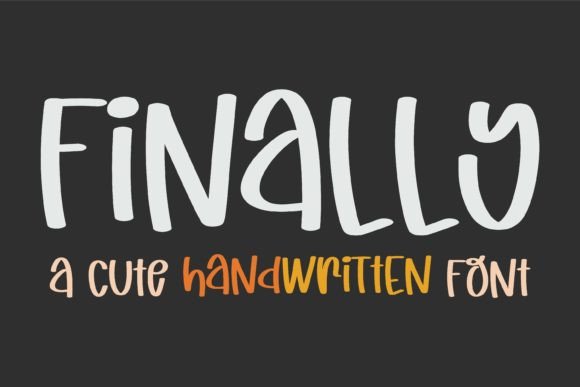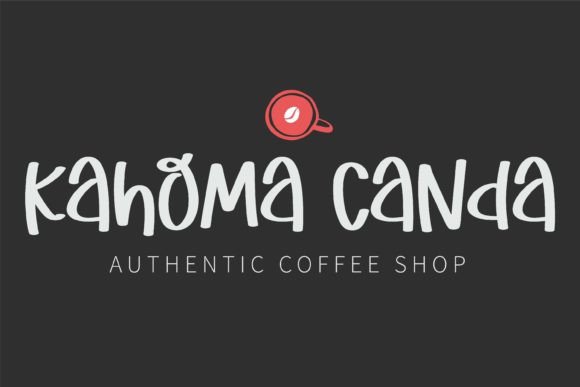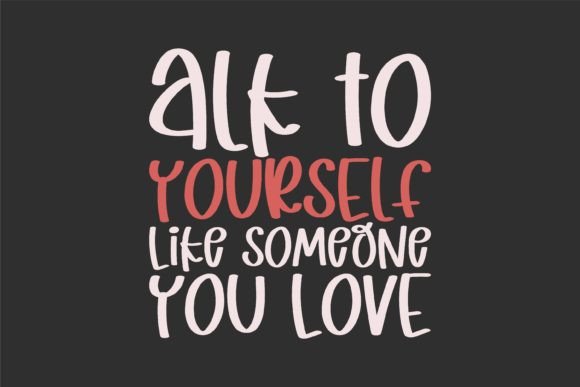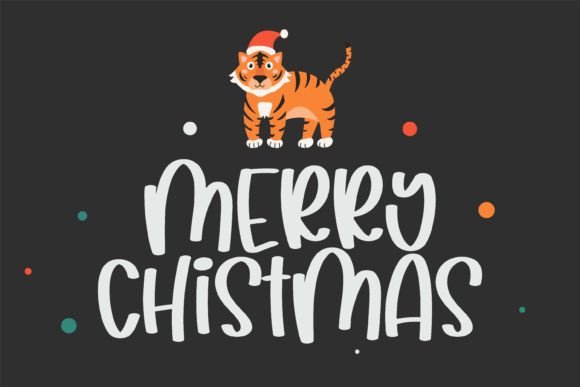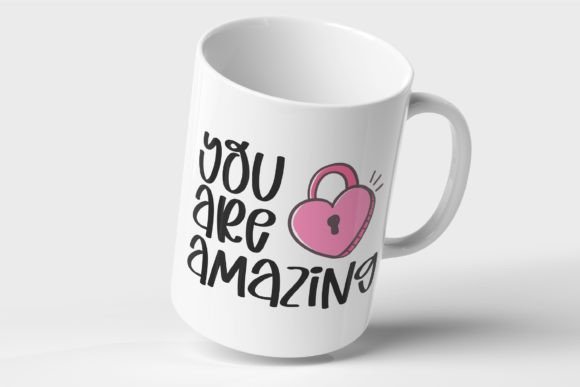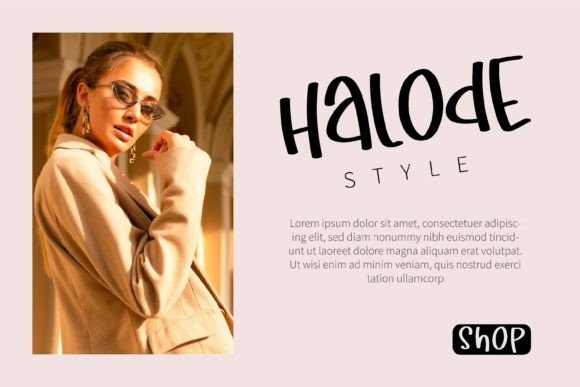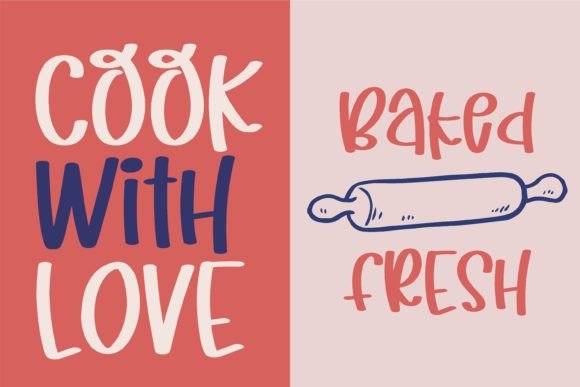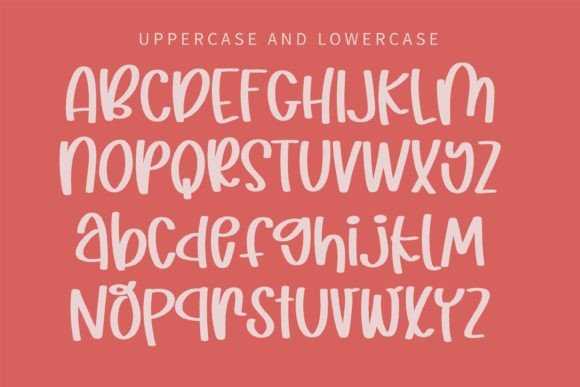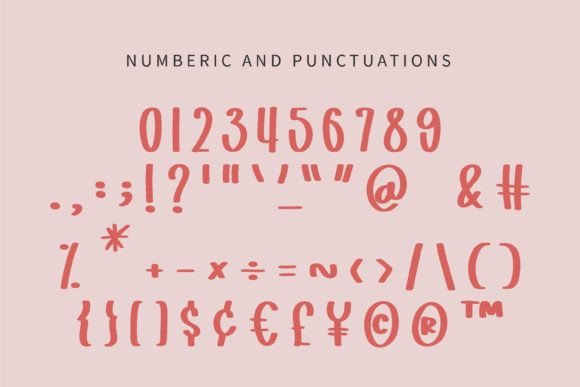
Finally Font
About Finally Font
Finally is a sweet and flowing handwritten font that radiates charm and versatility. Its delightful style makes it a perfect choice for a myriad of design applications, from creating gorgeous wedding invitations to crafting beautiful stationery art and eye-catching social media posts.
The font’s sweetness is evident in its flowing script, which adds a touch of warmth to any text it graces. Finally has the unique ability to convey a sense of genuine emotion and friendliness, making it ideal for projects where a personal and heartfelt touch is desired.
Whether you’re working on formal wedding invitations or designing eye-catching social media graphics, Finally adapts seamlessly to various contexts. Its versatility is a testament to its ability to bring a delightful and approachable aesthetic to a wide range of creative endeavors.
Finally’s flowing and handwritten style is a key feature that sets it apart. It captures the essence of natural handwriting, adding a touch of authenticity to your designs. This authenticity makes Finally a font that resonates with a wide audience and creates a connection with viewers.
In conclusion, Finally is more than just a font; it’s a design tool that infuses sweetness and versatility into your creative projects. Fall in love with its flowing script, and let it be the charming element that elevates your designs, from wedding invitations to social media posts, into visually stunning and heartfelt creations.